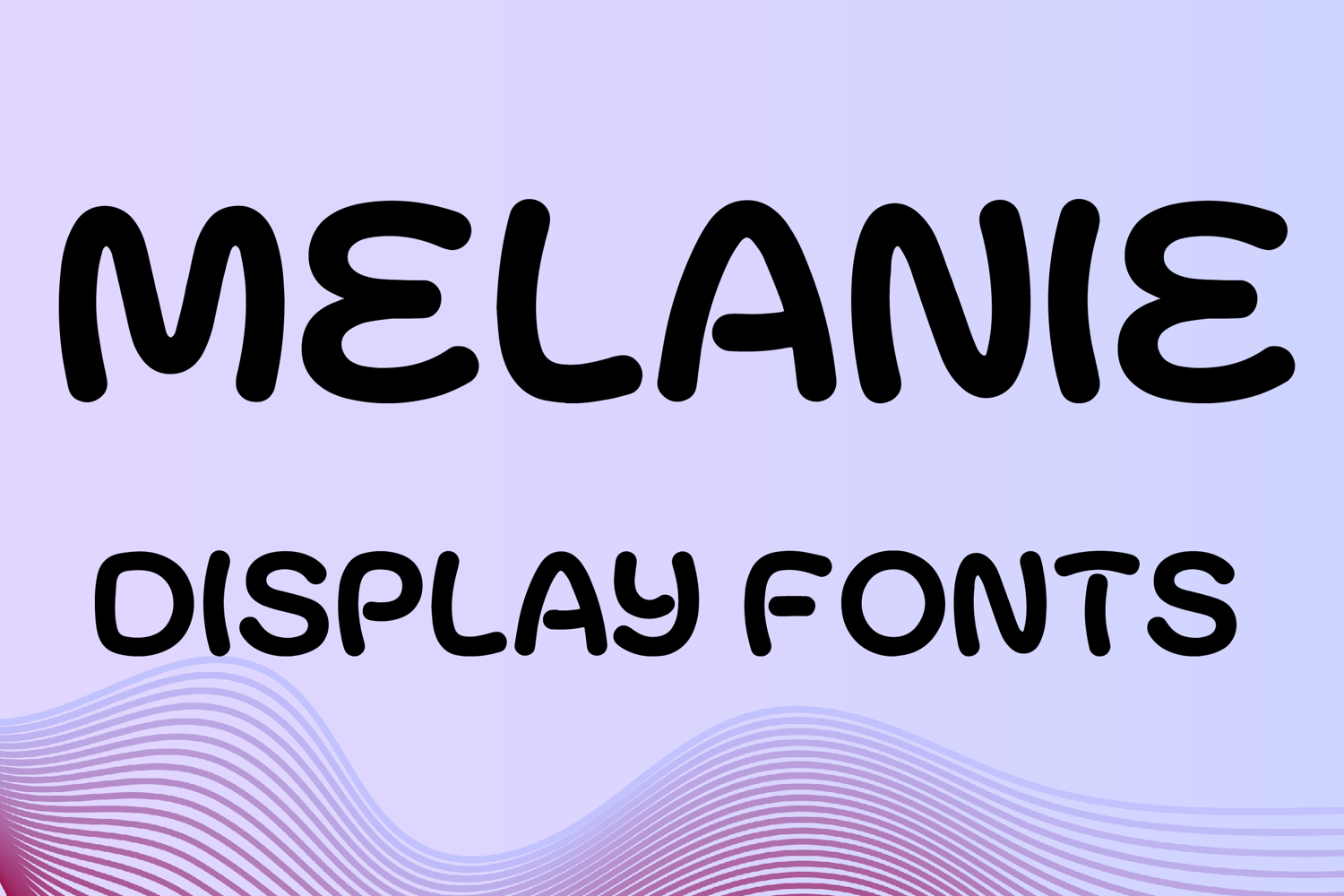
MELANIE
MELANIE is a playful display font with a soft rounded style and cheerful handcrafted charm. Its uppercase letterforms feature smooth thick strokes, bubbly curves, and quirky organic details that create a friendly, modern, and eye-catching look. Designed with uppercase letters A–Z and numbers 0–9, MELANIE is perfect for branding, posters, packaging, invitations, logos, social media graphics, and creative projects that need a fun and memorable statement.